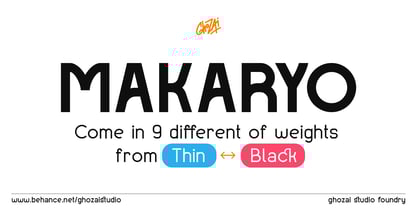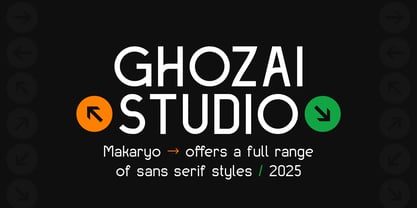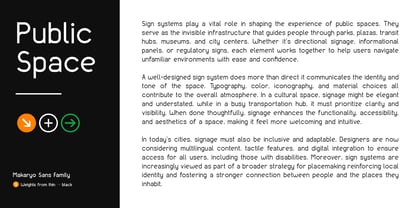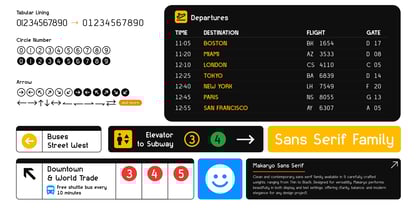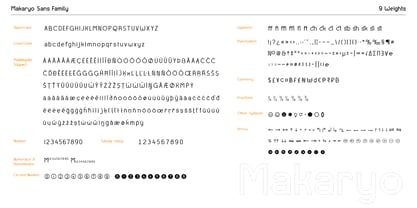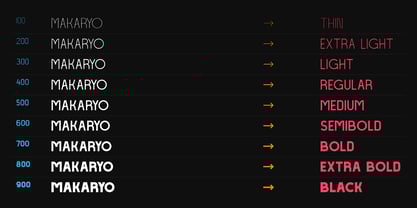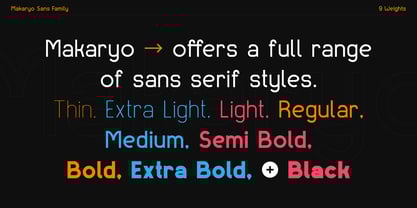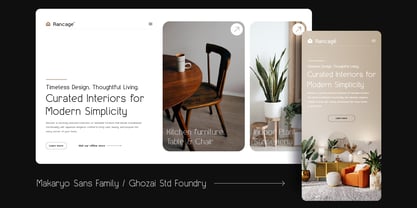
Makaryo
von Ghozai Studio
Die Schriftfamilie Makaryo wurde von Manzur Ghozaali entworfen und von Ghozai Studio veröffentlicht. Makaryo enthält 9 Stile und Familienpaketoptionen.
Makaryo is a font family featuring a wide range of weights (9), from Thin to Black, making it perfect for a variety of design needs. With a range of OpenType features, multilingual glyph support, and symbols, it’s ideal for projects in multiple languages, ensuring global versatility. Whether you’re working on bold headlines, dynamic sports graphics, or clear signage, Makaryo delivers the impact your designs need. Its clean, modern style and varied weights allow it to seamlessly transition from large, attention-grabbing titles to more subtle, refined text applications. Whether used in print or digital media, Makaryo provides both legibility and style, offering endless possibilities for your creative projects.